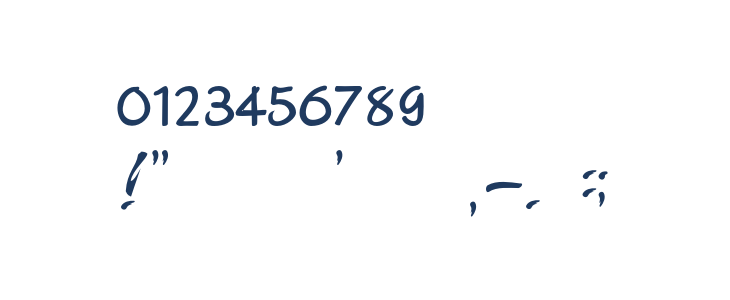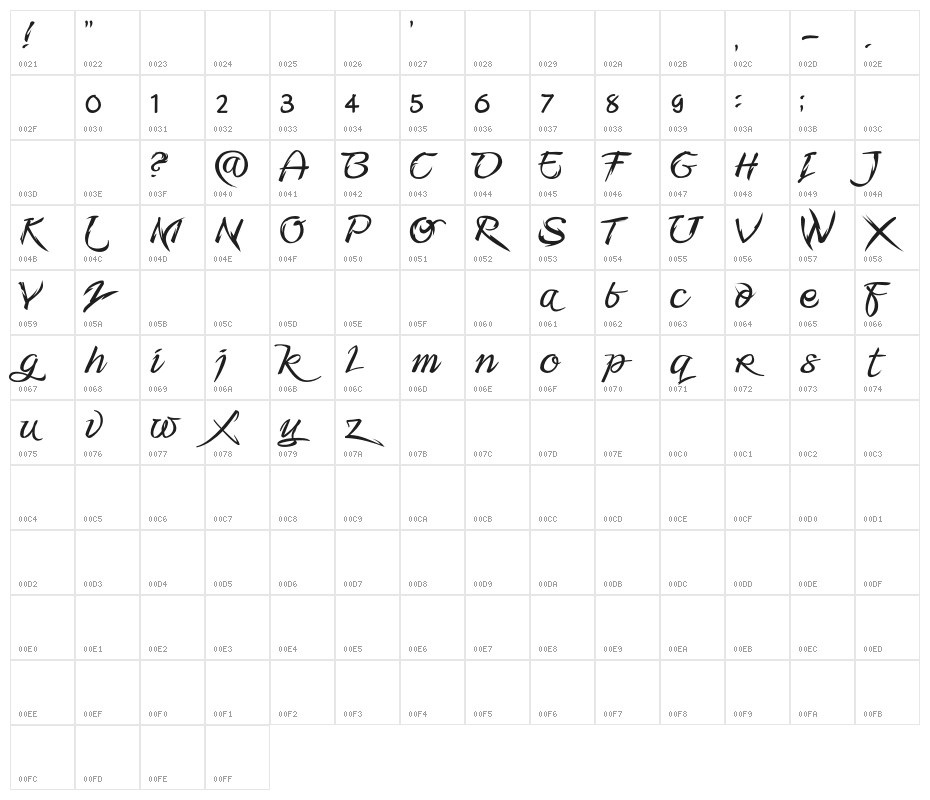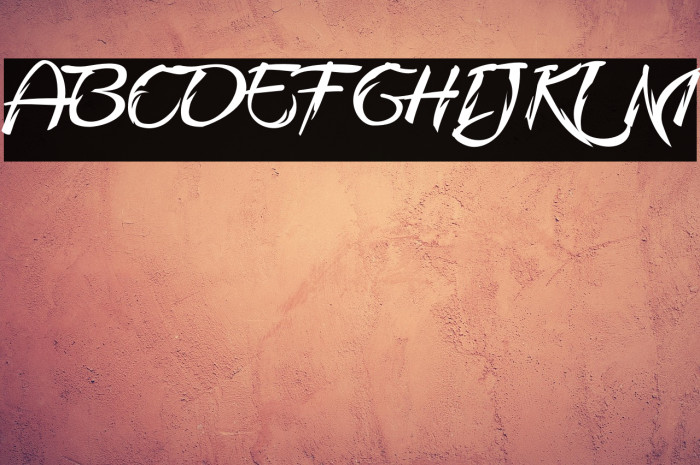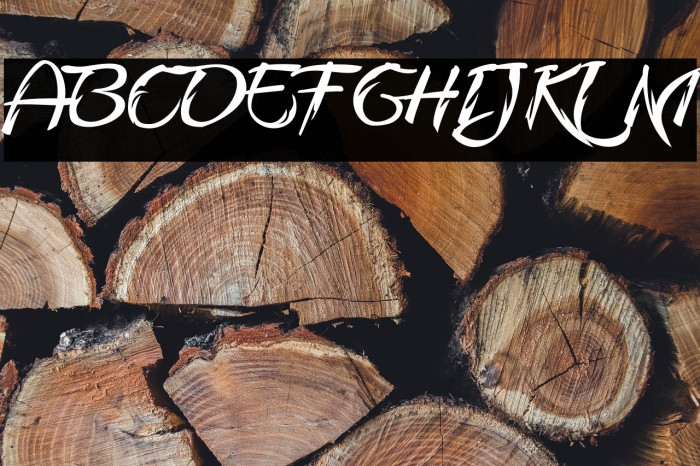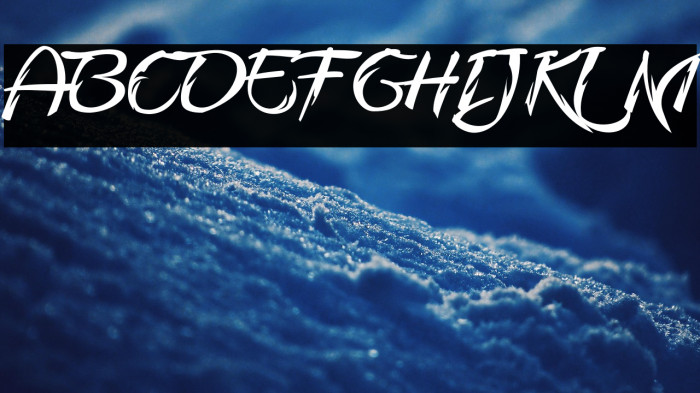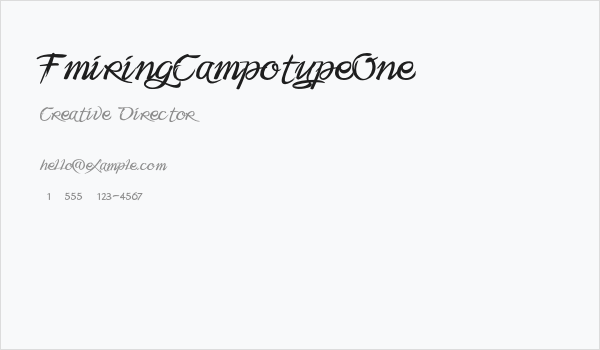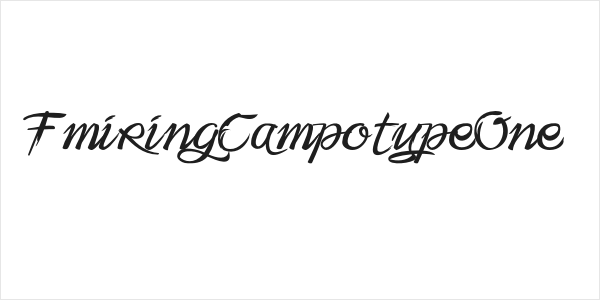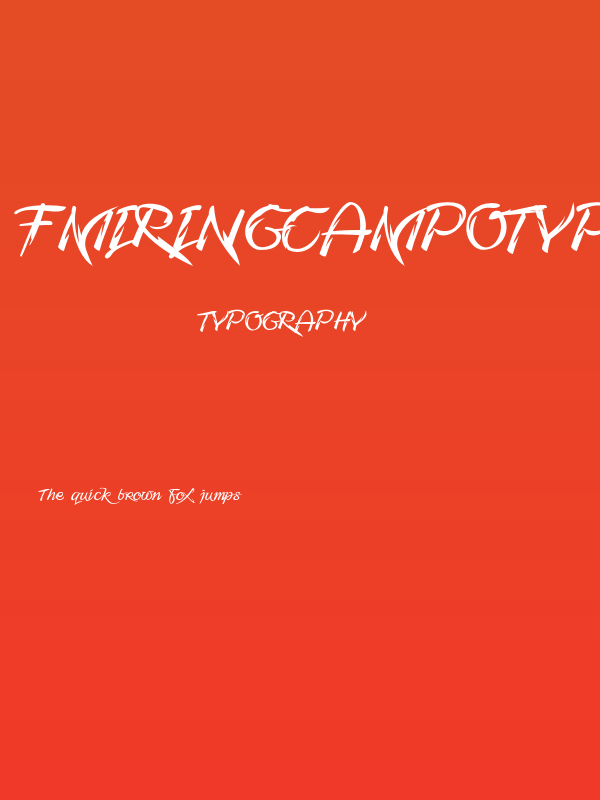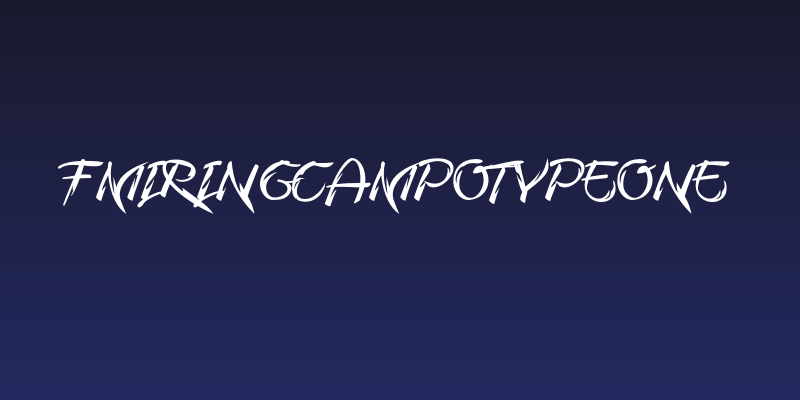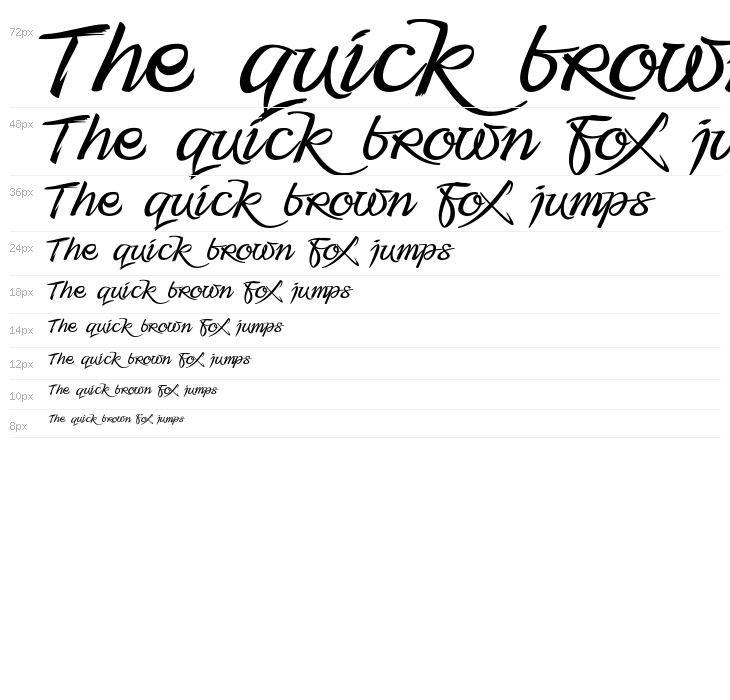
FmiringCampotypeOne Font
FmiringCampotypeOne Description
This font features a dynamic and expressive style, characterized by its sharp, angular strokes and flowing curves. The uppercase letters exhibit a bold presence with dramatic flourishes, while the lowercase letters maintain a consistent fluidity, adding a touch of elegance. The numbers are distinct and maintain the same stylistic flair, ensuring readability. Special characters are crafted with the same attention to detail, making them seamlessly integrate with the rest of the typeface. This font's unique design makes it stand out, offering a perfect blend of artistic flair and functionality.